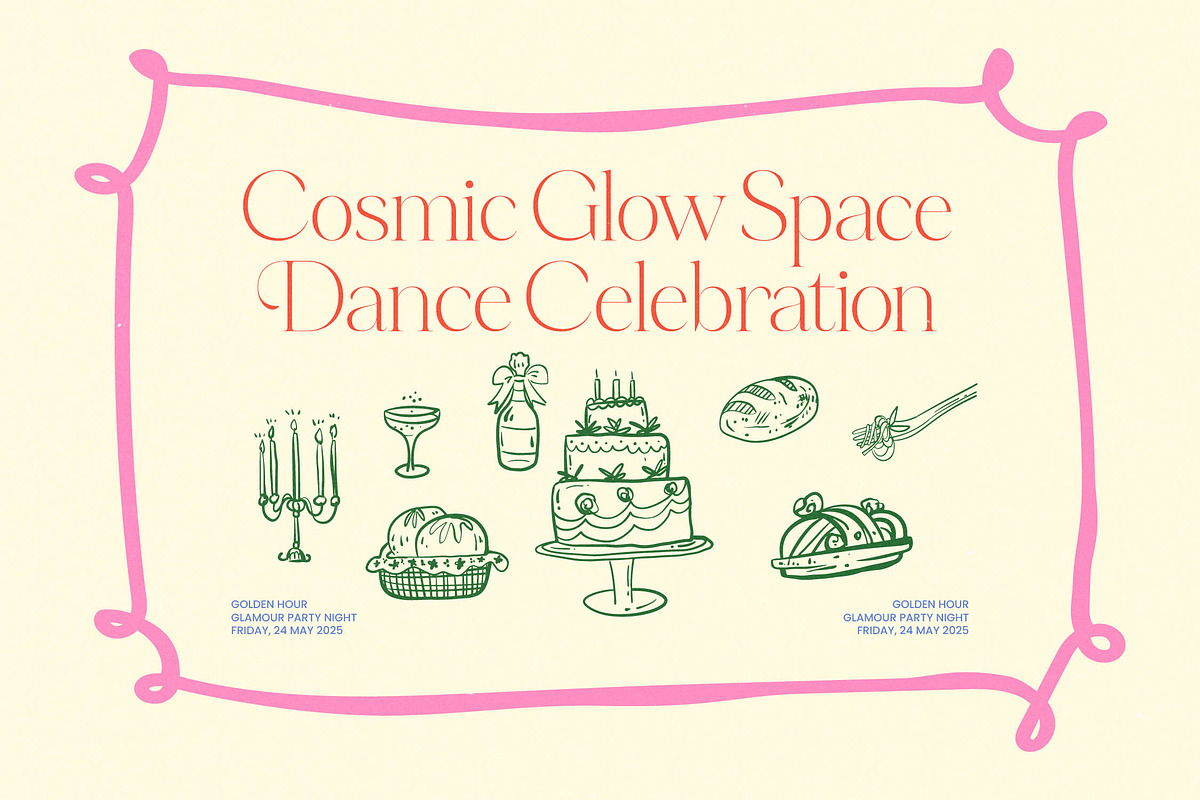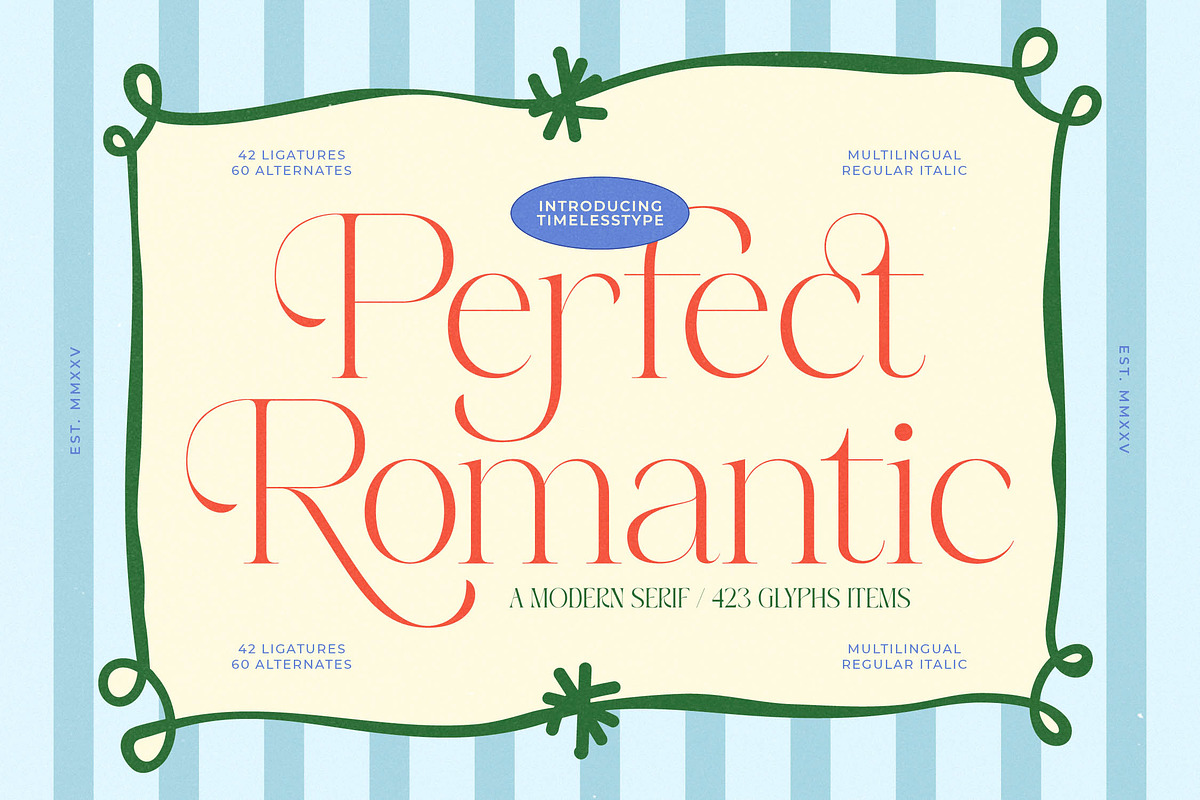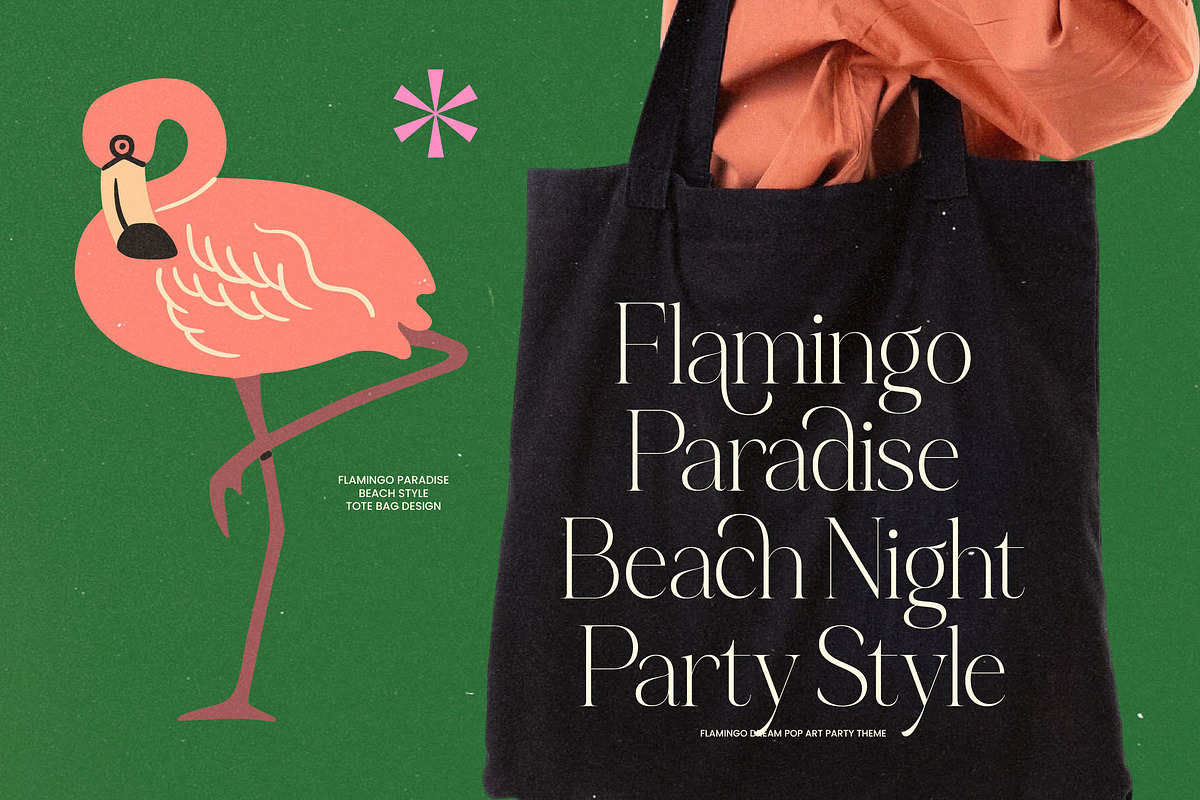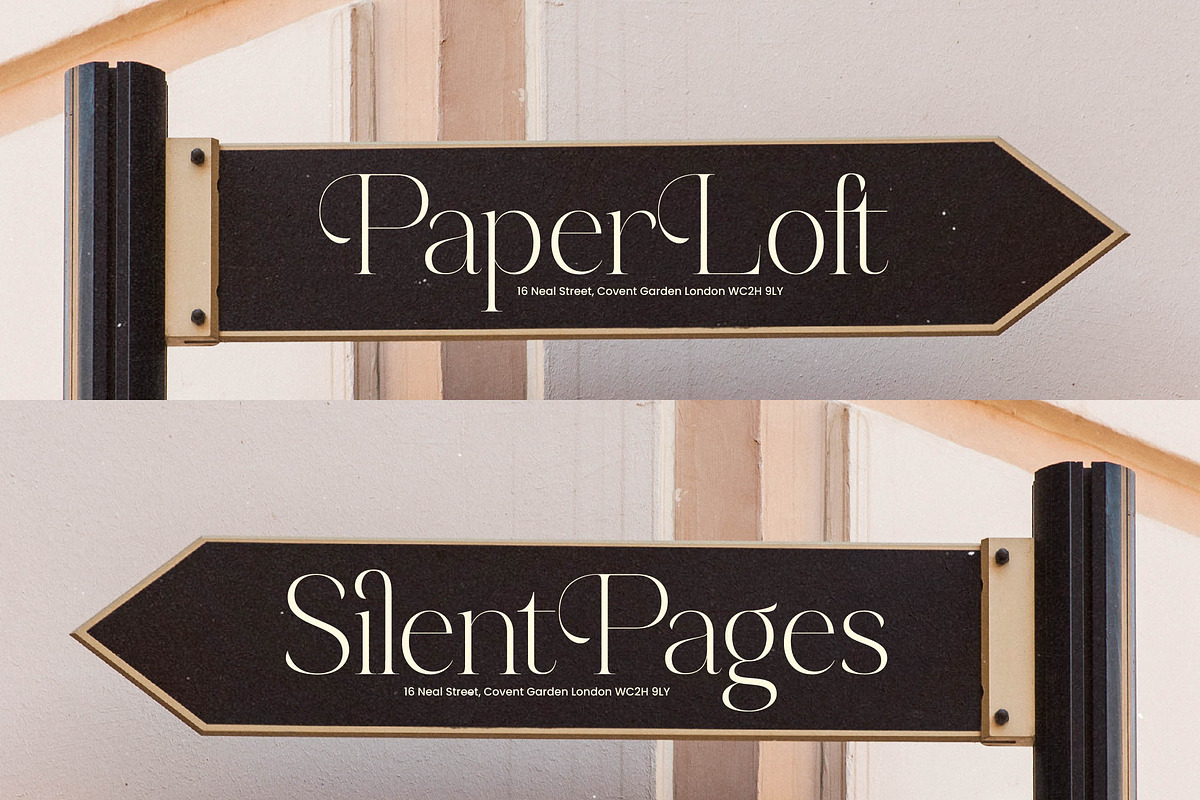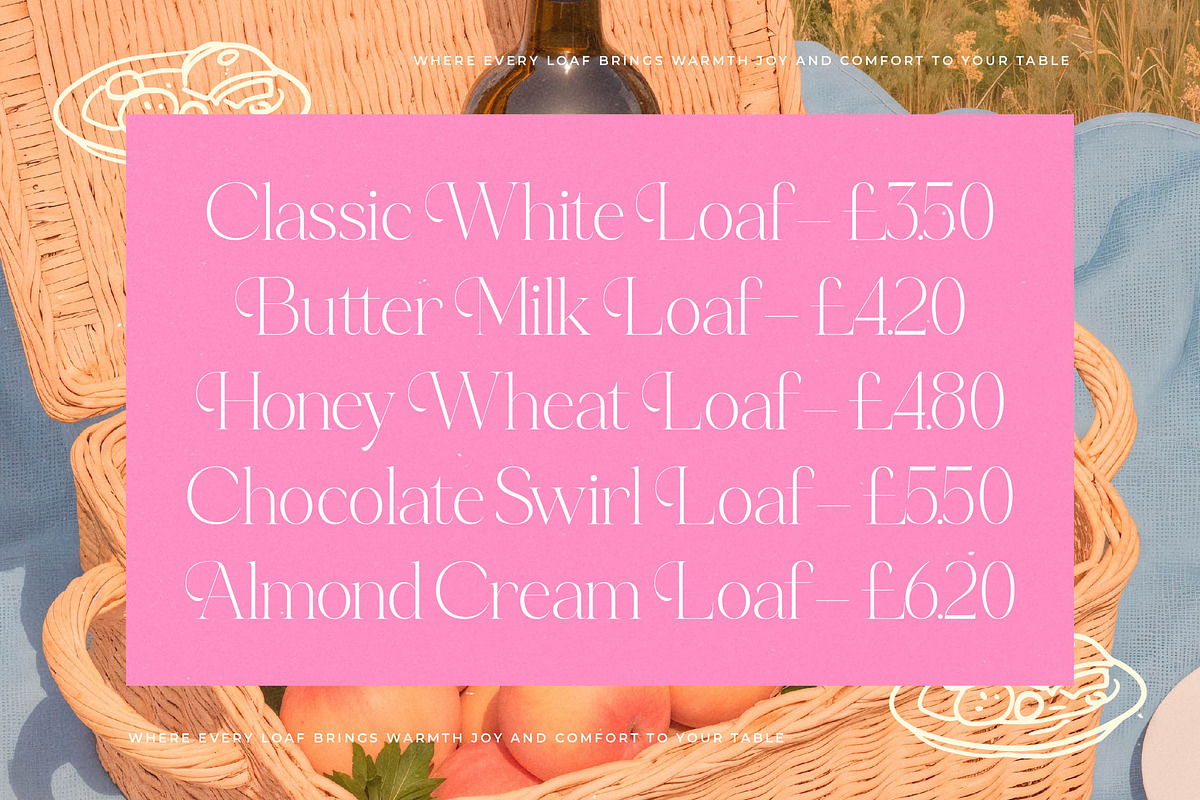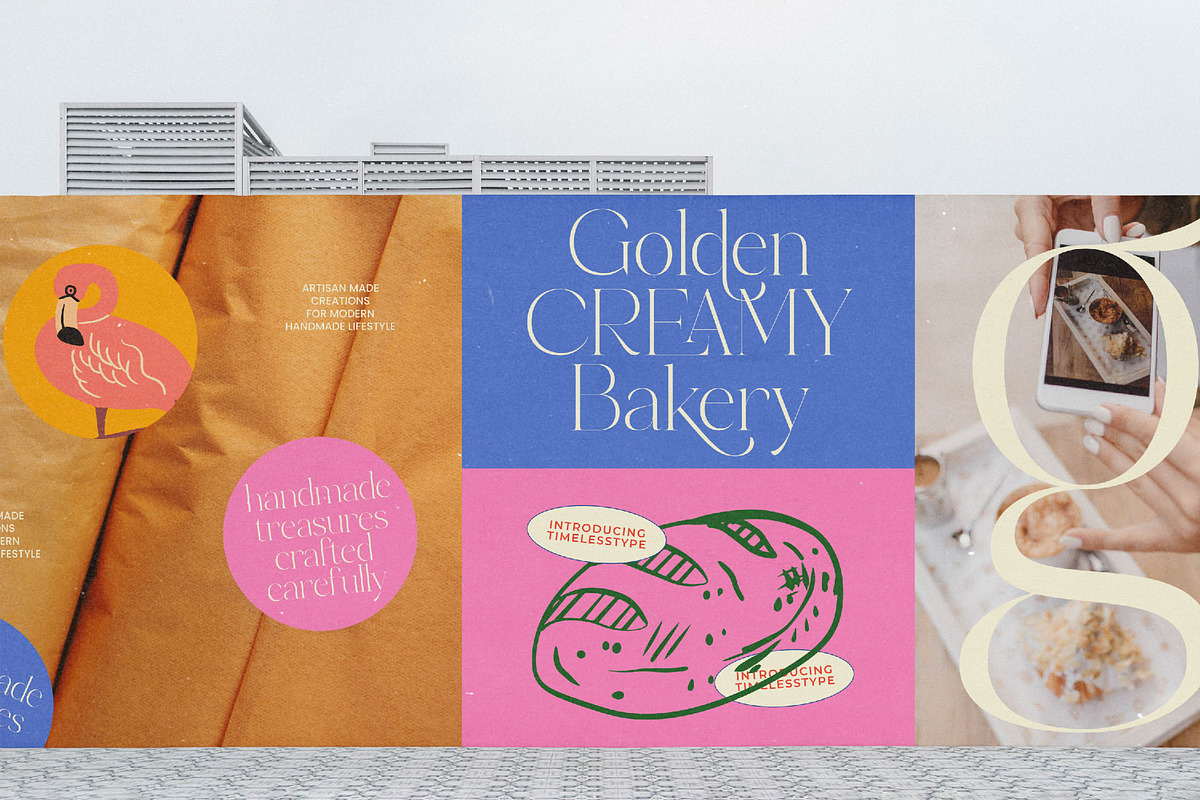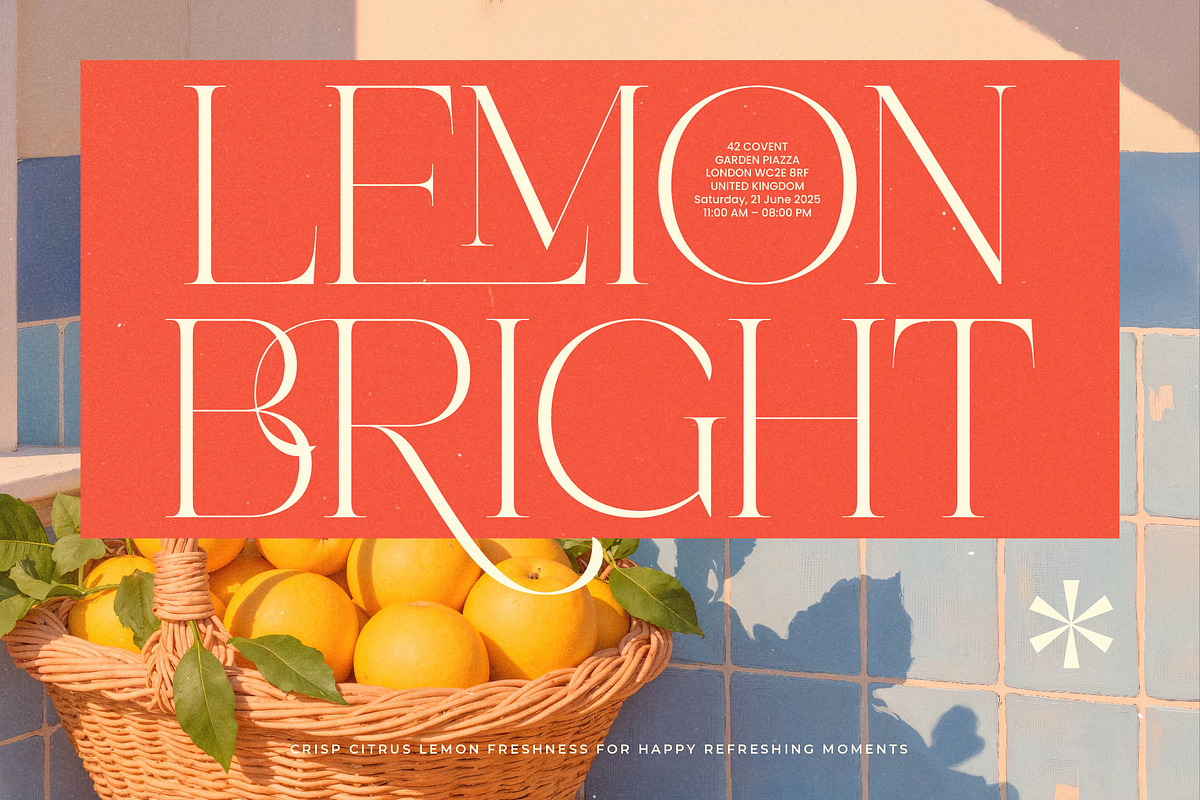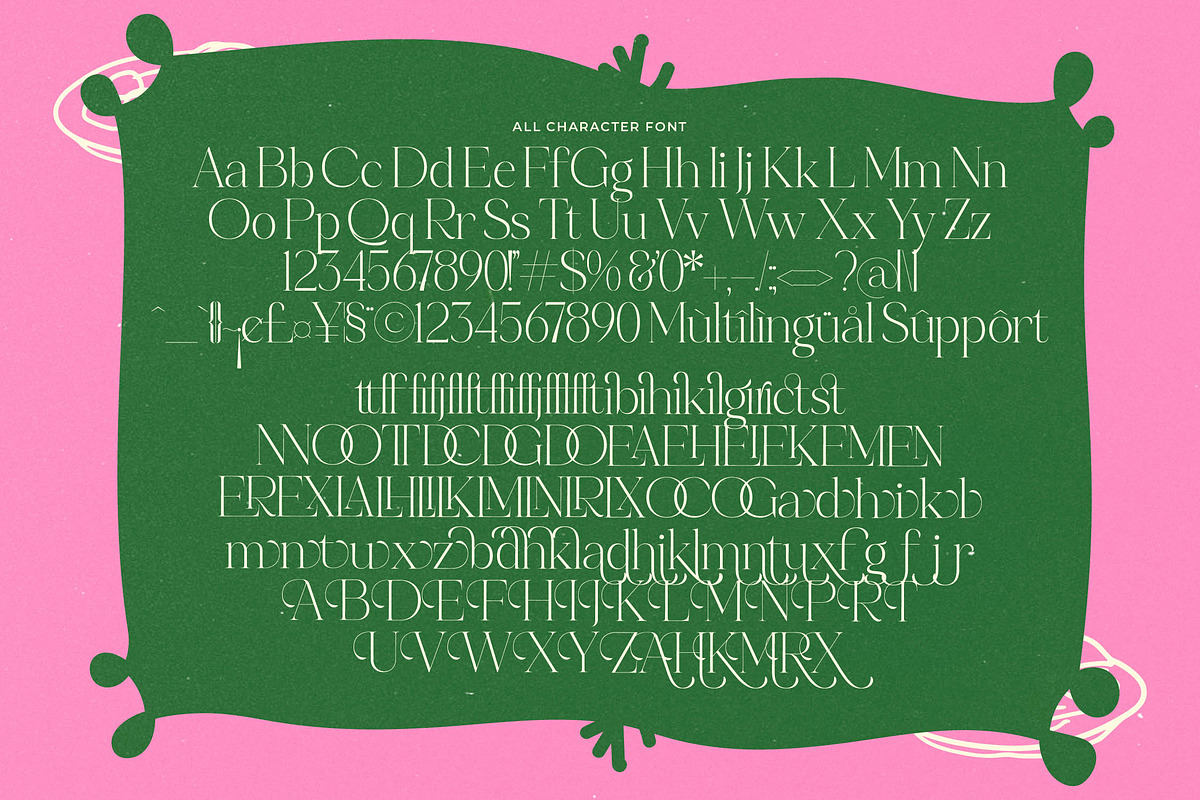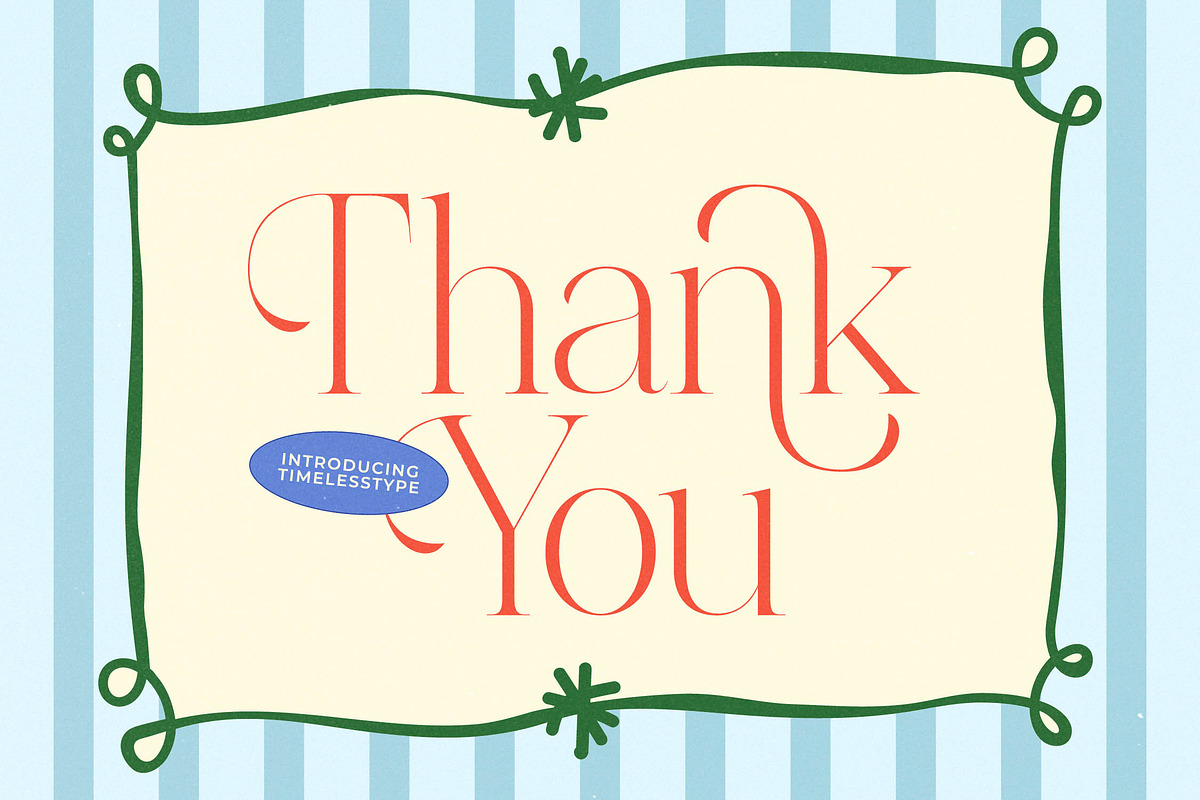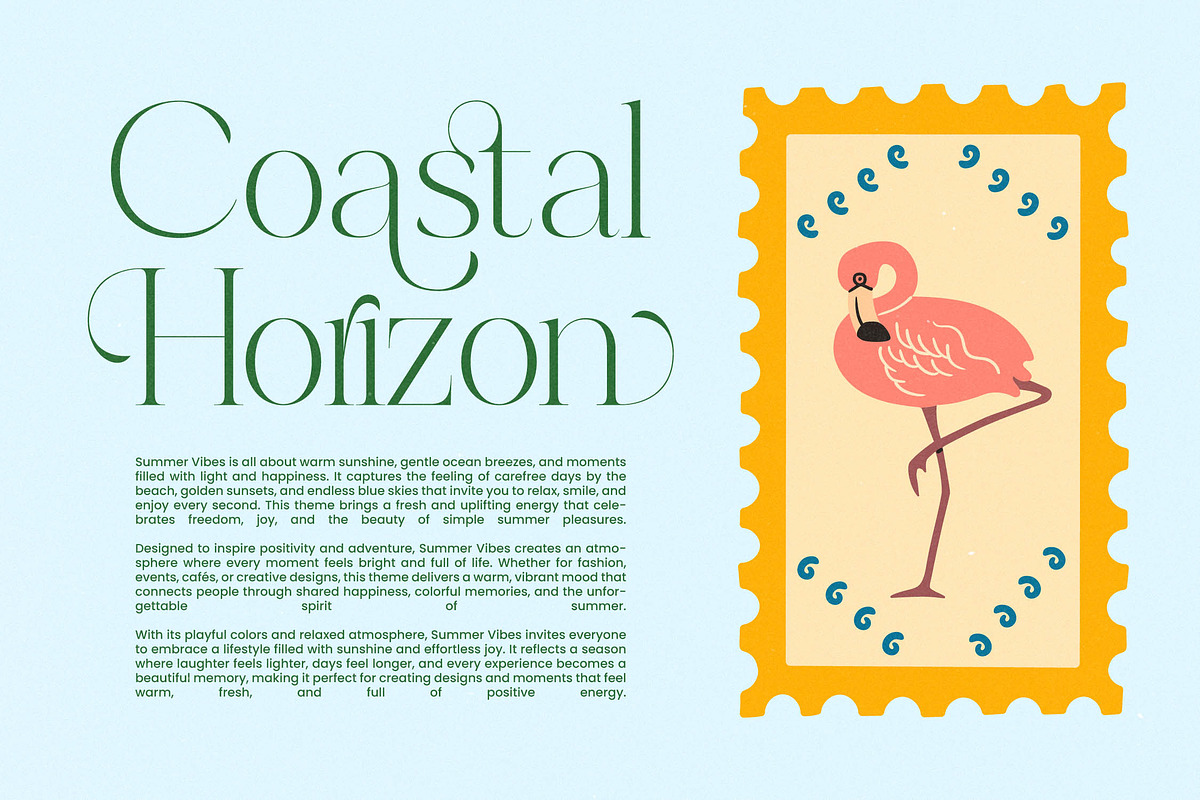
Perfect Romantic Modern Serif
Experience the breath of elegance with Perfect Romantic, a typeface designed to infuse your creative projects with an air of sophisticated charm and timeless beauty. This font captures the essence of a modern love story, blending classic curves with contemporary precision for a truly captivating visual experience.
Drawing inspiration from the delicate interplay of light and shadow in high-end fashion editorials, this typeface was born from a desire to merge traditional serif roots with a playful, hand-drawn aesthetic. The result is a visual narrative that feels both established and refreshingly avant-garde, reminiscent of vintage postcards met with modern-day luxury.
This modern serif display is defined by its luxury typography and striking high-contrast serif strokes that command attention in any layout. It functions as a powerful editorial font, offering a significant branding impact through its unique character combinations and fluid transitions that elevate simple text into a work of art.
Perfectly aligned with the current modern serif trend, this typeface meets the demand for editorial display fonts that offer more than just legibility. It leans heavily into the character-driven typography movement, providing designers with a versatile tool that bridges the gap between classic professionalism and boutique quirkiness.
Transform your next logo design or branding suite into a masterpiece, as this font is tailor-made for high-end editorial layouts and luxury packaging. It is an ideal choice for wedding invitations and fashion branding, where a touch of romanticism and distinct personality is required to stand out in a crowded market.
Beyond its stunning aesthetics, the font includes a massive library of 42 ligatures and 60 alternates that allow for endless customization. With over 423 glyphs, it features extensive swashes, full multilingual support, and a wide range of international characters to ensure your message reaches a global audience with flawless style.